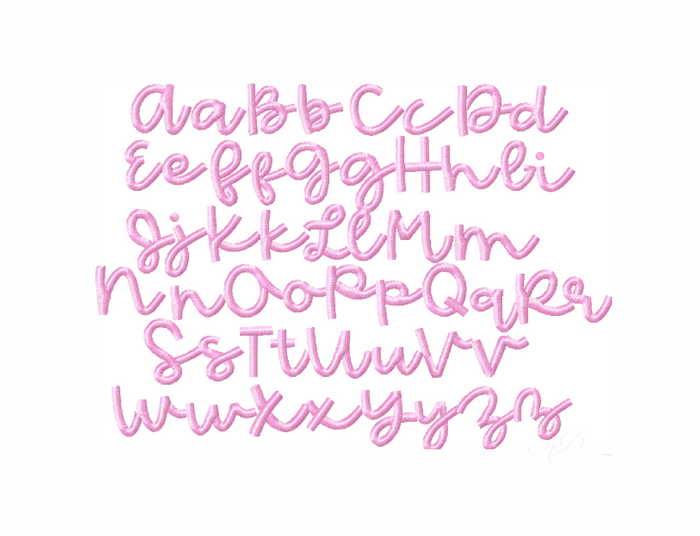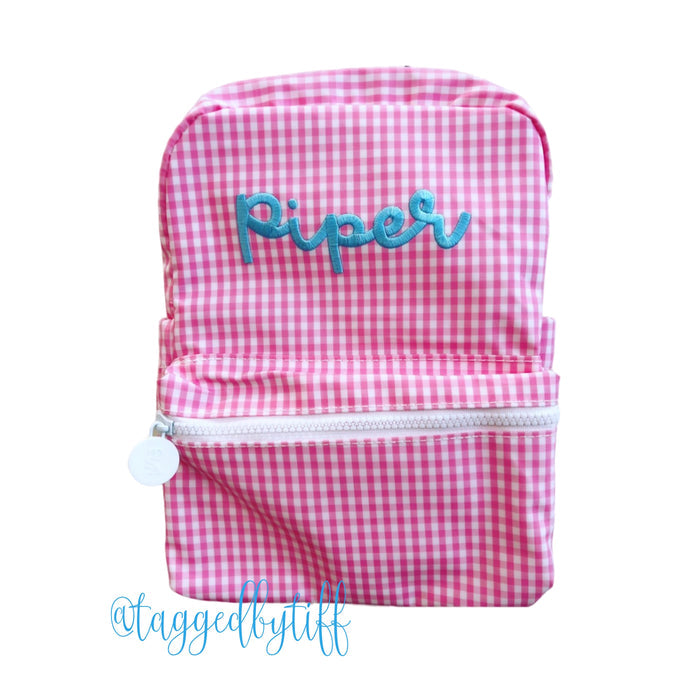
Hannah Satin Embroidery Font
The Hannah Satin Embroidery Font is a stunning single color satin stitch font ideal for crafting enthusiasts. Designed for versatility, it includes both uppercase and lowercase letters A-Z and comes in various sizes: 1/2", 3/4", 1", and 1.5". You can use this font in multiple formats: PES, DST, VIP, VP3, HUS, EXP, JEF, XXX, EMB, and BX.